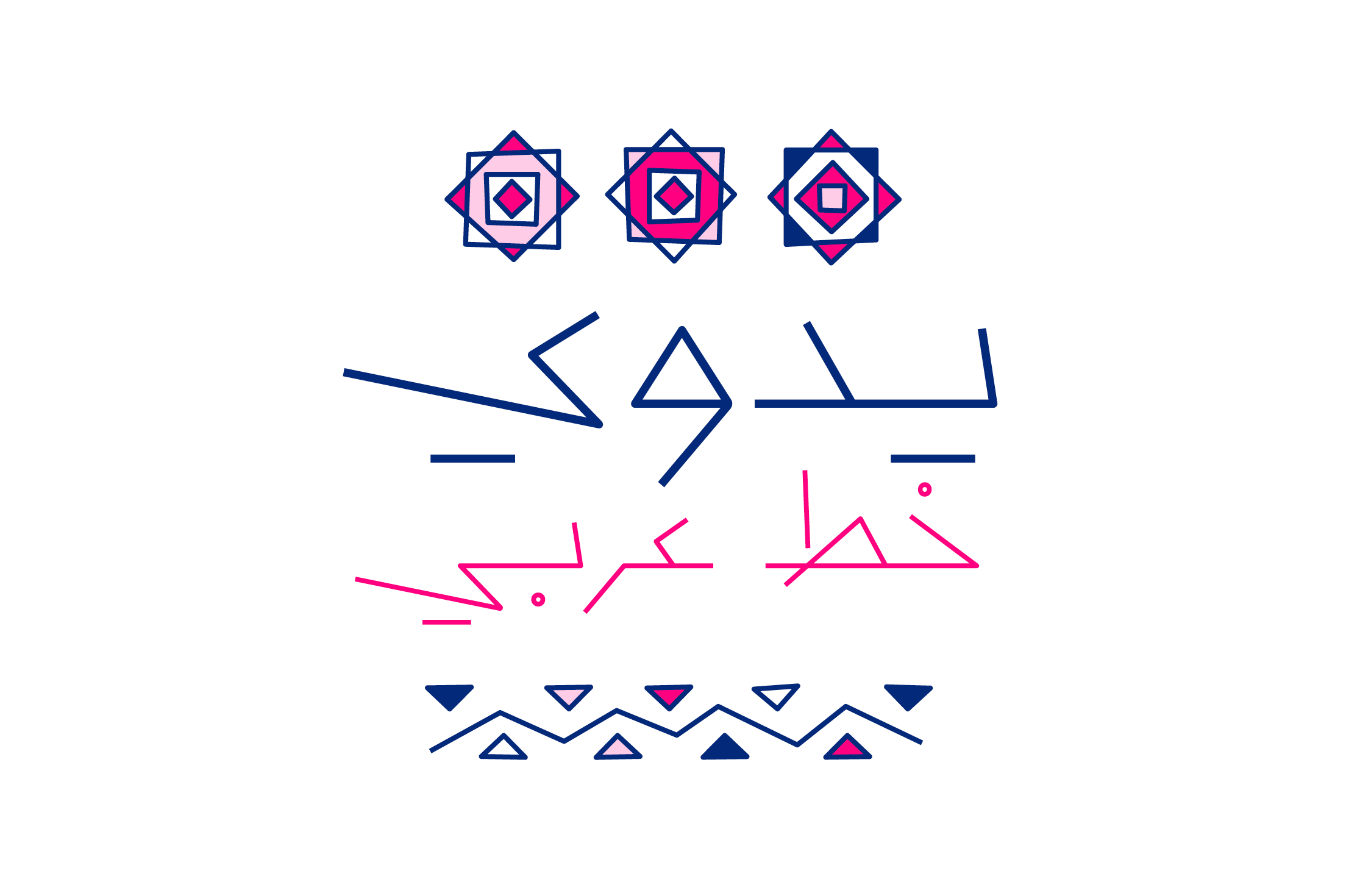
Yadawi (which is the Arabic for Handmade) is an Arabic display font. The letter form design is based on a distinctive handwriting style with a geometric flavor. Yadawi is suitable for web, print and mobile applications.